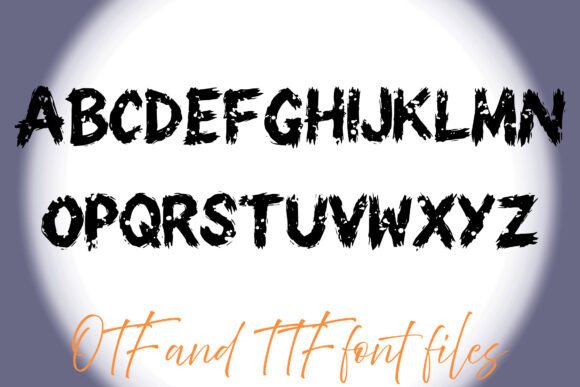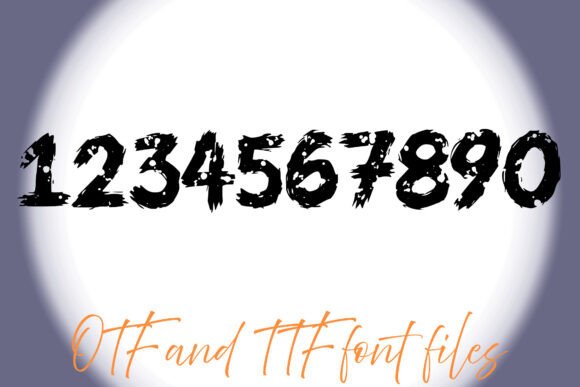
Introduction to Paint Splatters Font
Remember that moment when you were a kid, covered in paint, laughing and splattering colors everywhere? That carefree, creative energy is exactly what the Paint Splatters Font embodies – a bold and energetic display typeface that’s bursting with color and texture.
As designers, we’re always on the lookout for design resources that can add a personal touch to our projects. And that’s exactly what the Paint Splatters Font does – it brings an explosive, artistic vibe to posters, kids’ projects, streetwear branding, and creative headlines. With its unique texture and playful feel, this font is perfect for designers who want to add a bit of whimsy and personality to their work.
Key Features of Paint Splatters Font
- Unique, hand-painted design ideal for creative projects and artistic expressions.
- Perfect for adding a touch of whimsy and personality to designs, making it a great design resource for creative projects.
Honest Review: Paint Splatters Font
As a designer, I’m always on the lookout for unique and high-quality design resources to elevate my creative projects. The Paint Splatters Font is one such find that caught my eye. With its vibrant and expressive splatters, this font is perfect for adding a touch of whimsy to your designs.
- ✨ High-quality design that’s perfect for creative projects requiring a playful touch.
- ✨ The font comes in a range of colors and styles, offering flexibility for designers.
- ⚠️ The font may not be suitable for formal or professional designs due to its playful nature.
- ⚠️ Some users may find the font’s splatters difficult to read in certain contexts.
Overall, I’m impressed with the Paint Splatters Font’s potential to add a creative spark to designs. While it may not be suitable for all projects, it’s an excellent resource for designers looking to inject some fun and personality into their work.
How to Use Paint Splatters Font
The Paint Splatters Font is a unique and creative design resource perfect for adding a touch of whimsy to your projects. This high-quality font can be used in a variety of creative projects, from digital art to print designs.
Using in Design Platforms
For the best results, use the Paint Splatters Font in bold and large sizes to create a dramatic effect. You can also experiment with layering the font on top of other design elements for added depth and interest.
The Paint Splatters Font is perfect for creating eye-catching headlines, titles, and quotes. It’s also great for adding a playful touch to invitations, social media graphics, and other creative projects.